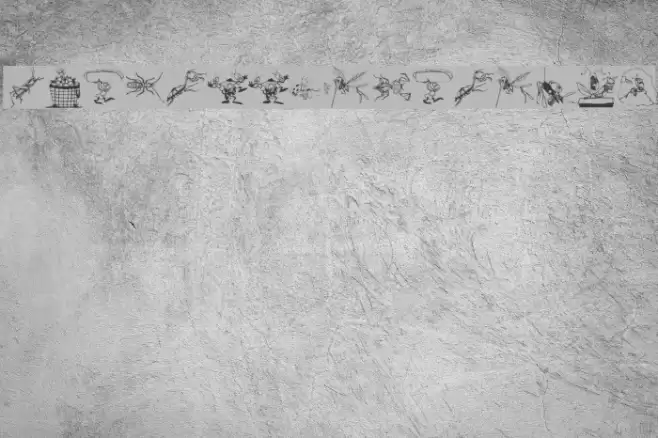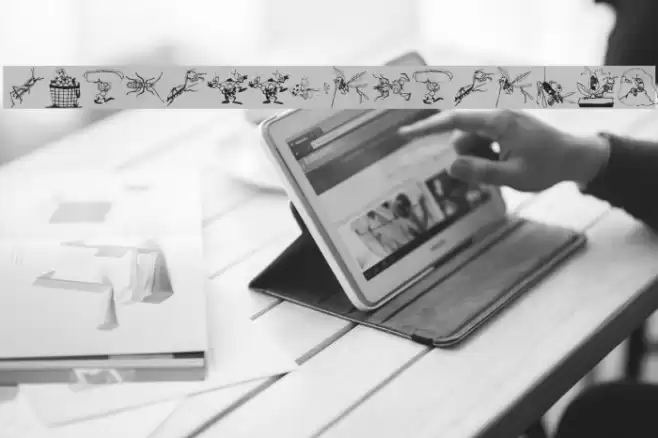
OurLittleFriends Font
OurLittleFriends Description
A whimsical, decorative dingbat font featuring a variety of hand-drawn cartoon insects and bugs, each glyph depicting a unique character or scene with playful and humorous details.
Playful dingbat font with cartoon insect illustrations from Uncategorized fonts.
- Proposed Projects: Children’s books, educational materials, party invitations, scrapbooking, themed posters, playful branding.
- Overall Style: Decorative, Whimsical, Playful
- Use Case: Illustrative accents, icons, decorative elements